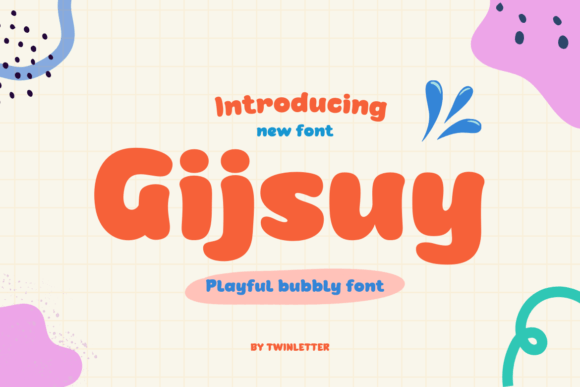
Unleash the power of exquisite font artistry with 'suy', the epitome of playful digital expression! As a font family forged for delightful display, 'suy' masterfully paints unique identities onto cards, books, quotes, invitations, and beyond. Discover the joy of 'suy' and witness your creations spring to life with an allure that's simply hard to resist.
With 'suy' at your creative helm, envision eye-popping business cards, movie title cards, and more that capturethe dynamic spirit of our digital age. Let your projects come alive with the vibrant energy of 'suy' and embrace the digital revolution like never before.
'Suy' isn't just a font; it's a gateway to a visual realm where anything is possible. From the depths of children's imaginations to the heights of movie-going wonder, 'suy' empowers you to make the ordinary, magnificent. Ready your digital palette and prepare to be amazed as 'suy' transforms your digital dreams into a living reality.